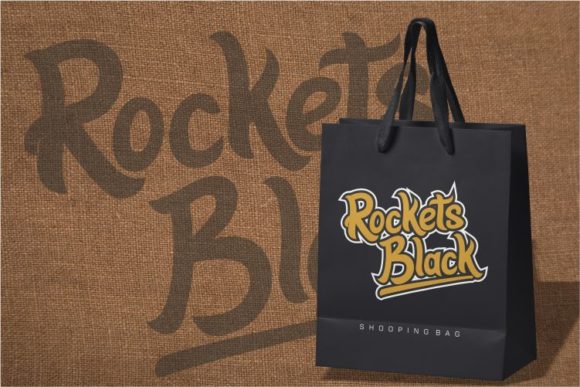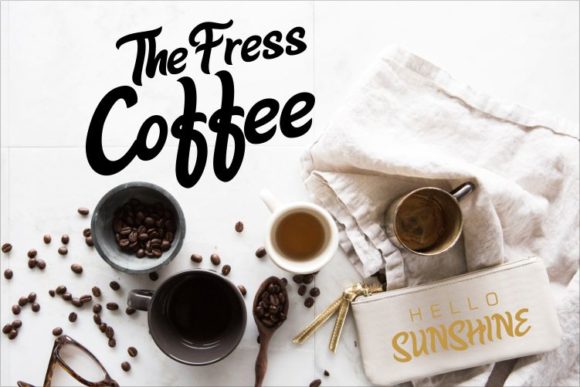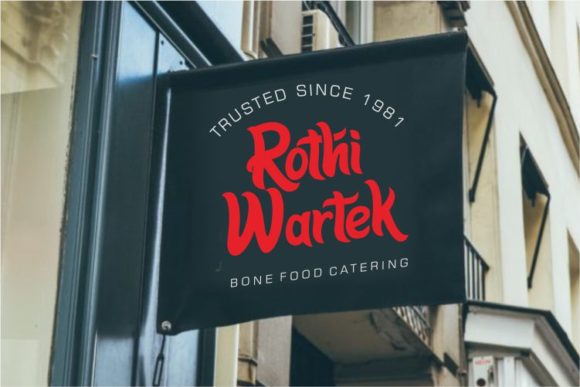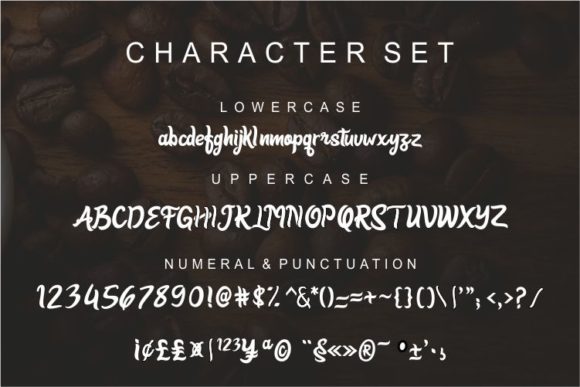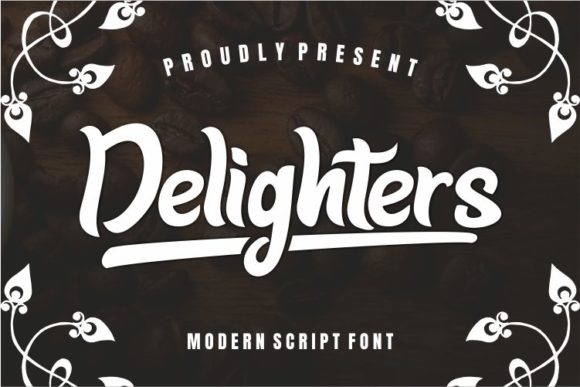
Introducing Delighters Font: Elevate Your Designs with Elegance
Are you on the hunt for a font that exudes elegance and sophistication? Look no further than Delighters Font, a stunning flowing handwritten font that is sure to capture your heart. With its incredibly distinct and timeless style, Delighters is the perfect addition to your favorite projects, allowing you to create spectacular designs that stand out from the crowd.
The Essence of Delighters Font
Delighters Font is a masterpiece of typographic design, boasting an elegant touch that sets it apart from other fonts. Its flowing, handwritten style is both refined and captivating, making it an excellent choice for designers and crafters seeking to add a touch of sophistication to their work. Whether you’re creating a logo, branding materials, or simply looking to elevate your digital or print designs, Delighters Font is the perfect companion.
Key Features of Delighters Font
- Elegant and Refined: Delighters Font features an undeniably elegant and refined aesthetic, perfect for projects requiring a sophisticated touch.
- Flowing Handwritten Style: Its flowing, handwritten style gives Delighters a unique and personal feel, making your designs stand out.
- Distinct and Timeless: The font’s distinct style ensures it remains timeless, avoiding the trend-based pitfalls that can make designs look dated.
- Versatile: Delighters Font is incredibly versatile, suitable for a wide range of projects from logos and branding to digital and print media.
Delighters Font is more than just a typeface; it’s a tool for creativity. For designers, it offers a fresh and inspiring choice for projects that demand a high level of elegance and sophistication. For crafters, it provides an accessible way to add professional-quality typography to handmade projects, such as greeting cards, invitations, and more.
Tips for Maximizing Delighters Font’s Potential
- Experiment with Sizes: Delighters Font looks great in various sizes, from large headings to smaller body text. Experiment with different sizes to find the perfect balance for your design.
- Play with Colors: The font’s elegant style pairs well with a wide range of colors. Don’t be afraid to get creative with color choices to match your brand or project’s aesthetic.
- Combine with Other Fonts: For added visual interest, try pairing Delighters Font with complementary fonts. Its unique style makes it a great base for a font pairing.
Delighters Font is a beautiful, elegant, and versatile typeface that can elevate any project. Its flowing handwritten style, distinct and timeless aesthetic, and wide range of applications make it a valuable addition to any designer’s or crafter’s toolkit. Whether you’re looking to create stunning designs, add a professional touch to your crafts, or simply explore new typographic possibilities, Delighters Font is sure to delight. So why wait? Fall in love with Delighters Font today and discover a world of design possibilities at your fingertips.